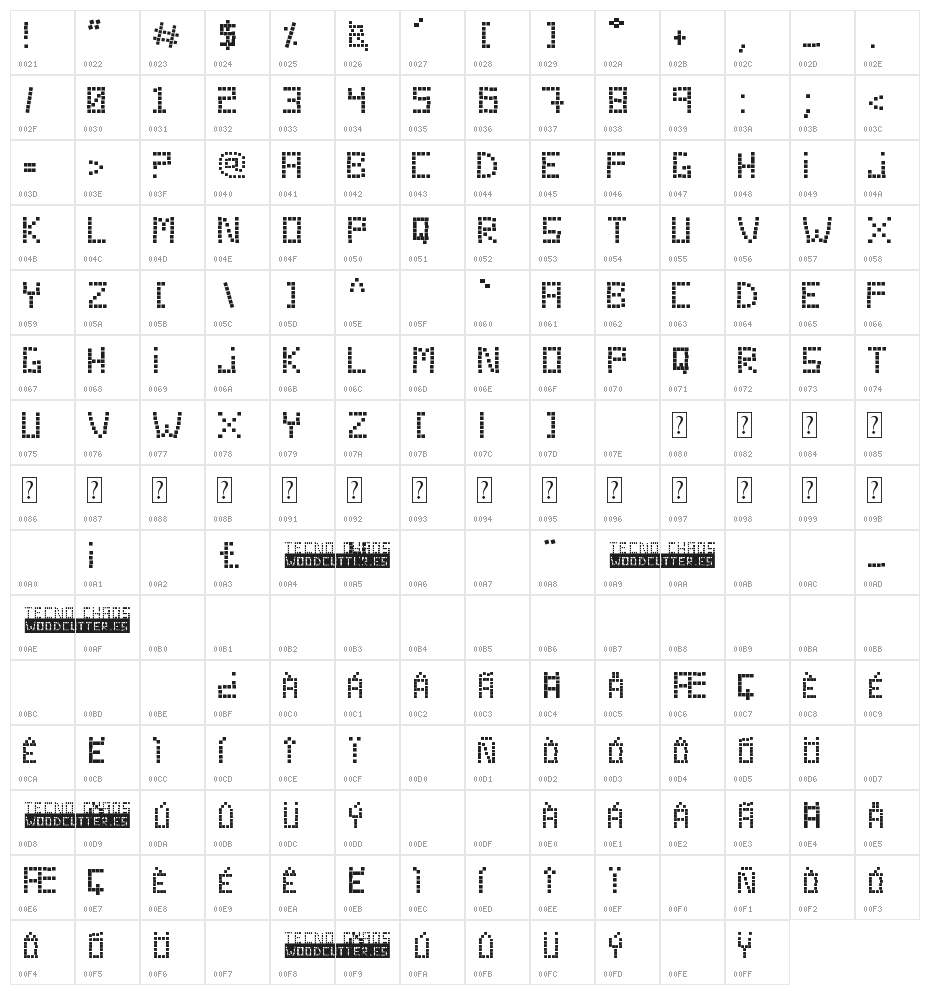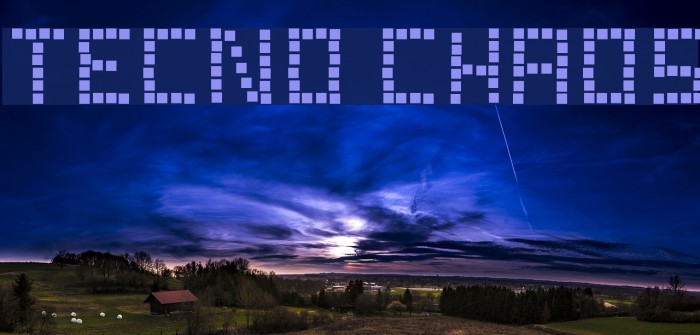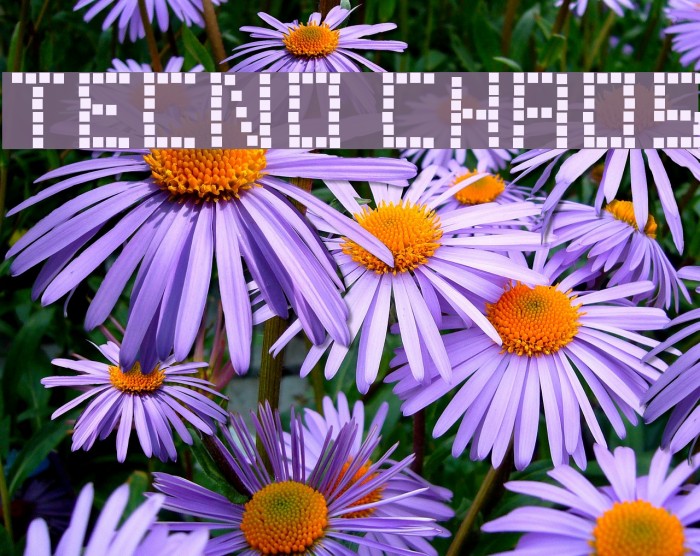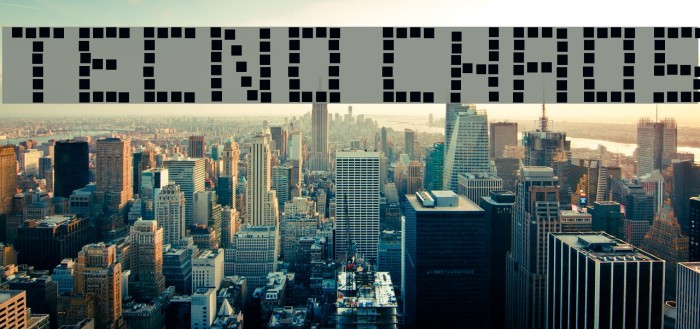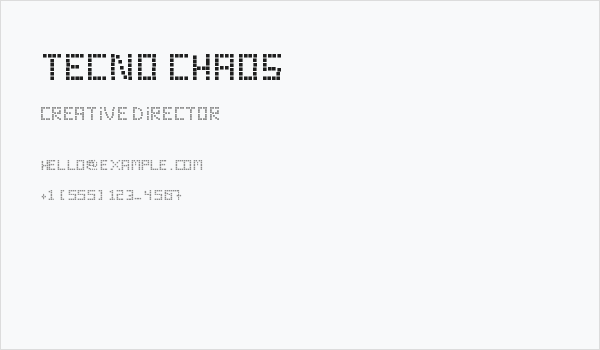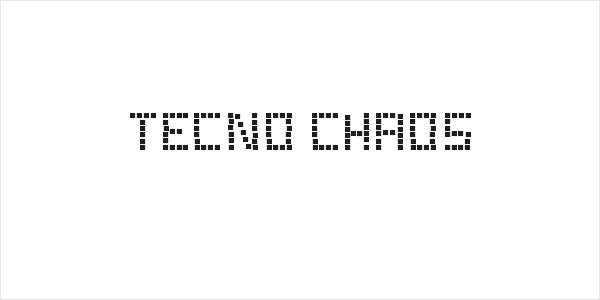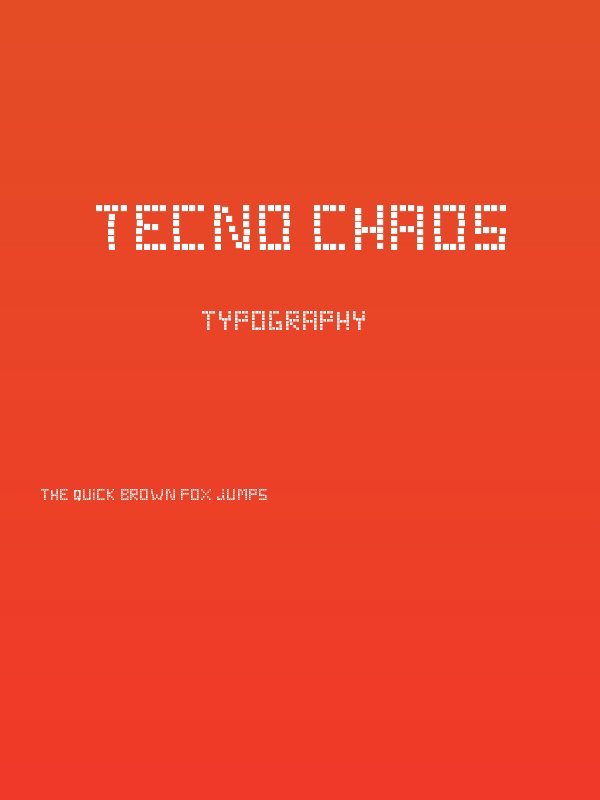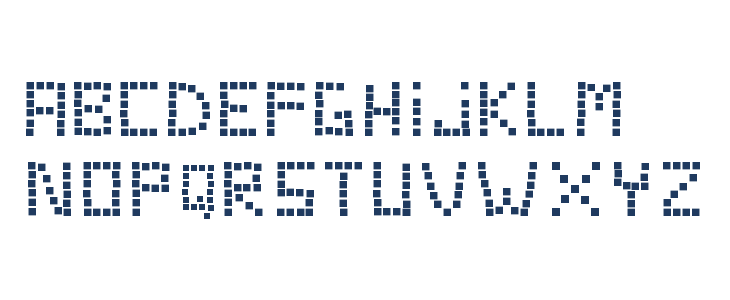
Tecno Chaos Font
Tecno Chaos Description
This font features a distinct pixelated design, reminiscent of early digital displays and retro video games. Each character is constructed from a grid of small squares, giving it a blocky, geometric appearance. The uniformity in size and shape of the squares creates a cohesive and structured look, while the overall style maintains a playful and nostalgic feel. The font is highly legible, with clear differentiation between characters, making it suitable for both display and text purposes. Its unique aesthetic is ideal for projects that aim to evoke a sense of technology or vintage computing.
| Overall Style | Retro, Digital |
| Use Case | Headlines, Logos, Digital displays |
| Proposed Projects | Ideal for video game graphics, tech-themed posters, digital art projects, and retro-style branding. |